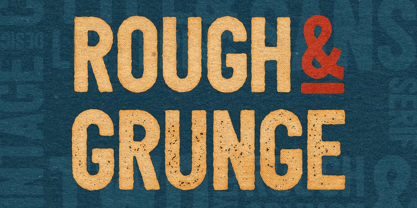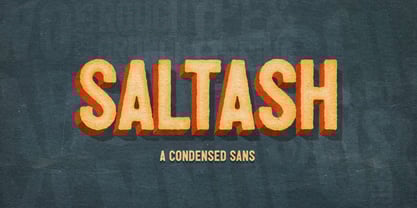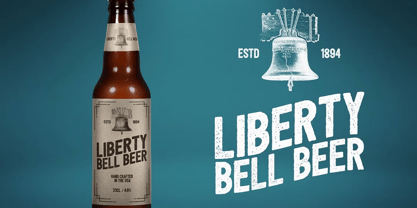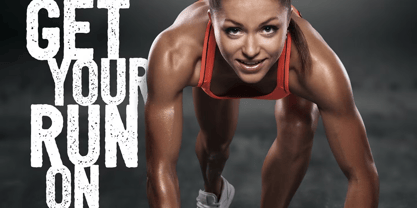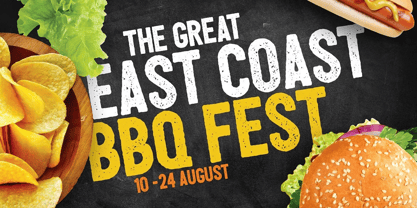
Saltash
The Saltash Font Family was designed by Ian Barnard and published by Ian Barnard. Saltash contains 2 styles and family package options. More about this family
SALTASH is a condensed sans serif typeface available in both rough and grunge versions. This versatile display font is perfect for various media, including posters, packaging, vintage logo designs, and clothing. SALTASH showcases unique grunge and rough textures when using a combination of uppercase and lowercase letters, enhancing the authenticity of your work.